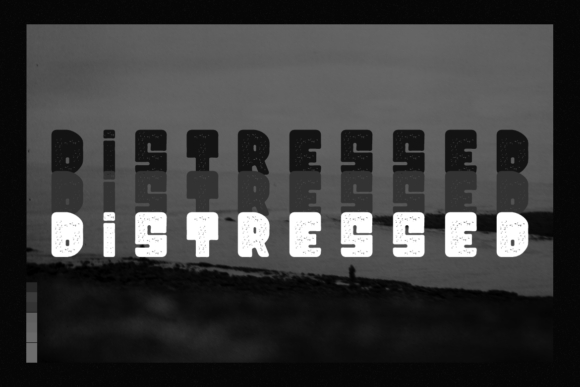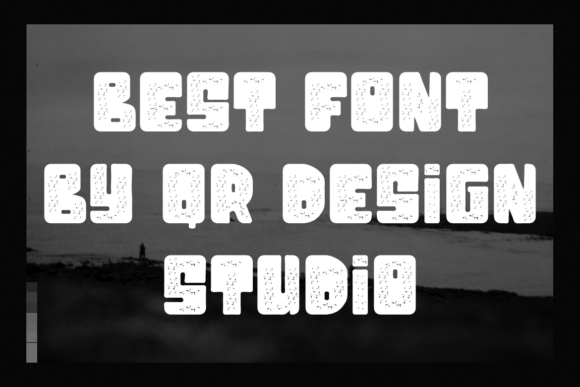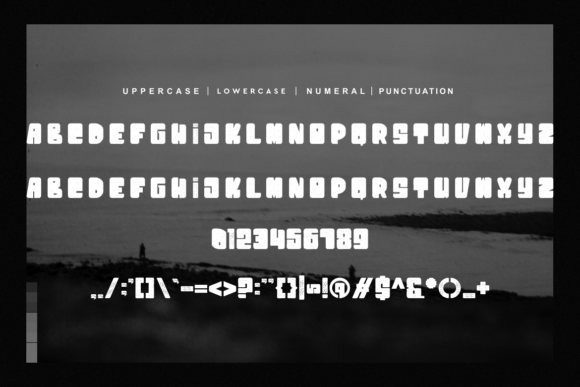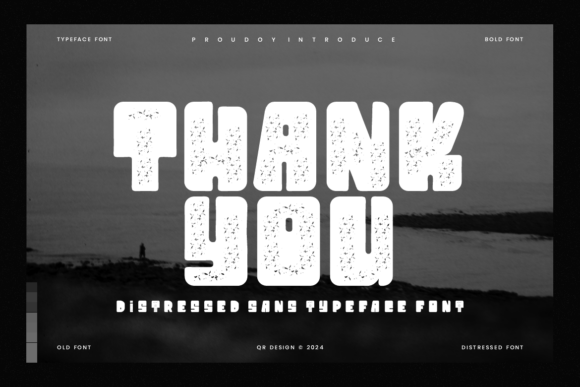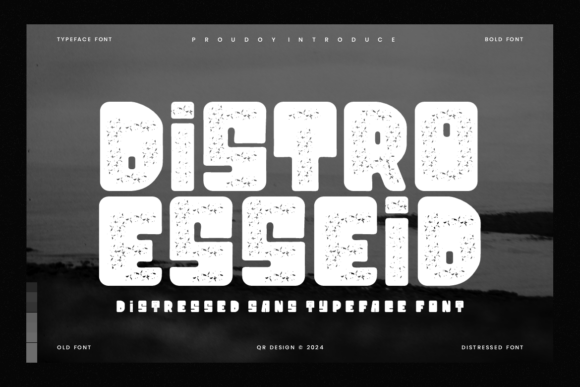
Introducing Distro Esseid Font: The Ultimate Modern Sans Serif for Bold Designs
In the world of typography, a font can make or break a design. For designers and crafters looking for a bold, modern sans serif font that exudes confidence and sophistication, look no further than Distro Esseid. This stunning typeface is designed to turn heads with its clean lines, strong geometric shapes, and contemporary style, making it perfect for logos, headlines, branding, and projects that demand a confident, eye-catching presence.
What Makes Distro Esseid Stand Out?
Distro Esseid is not just another font; it’s a statement piece. Its bold, modern sans serif design is characterized by clean lines and strong geometric shapes that give it a unique edge. This font is crafted to provide a sense of confidence and professionalism, making it an excellent choice for designers who want to create a lasting impression.
Key Features of Distro Esseid Font
• Bold and Modern Design: Distro Esseid boasts a bold, modern sans serif design that is perfect for making a statement.
• Clean Lines and Geometric Shapes: The font’s clean lines and strong geometric shapes give it a sleek, sophisticated look.
• Contemporary Style: Its contemporary style ensures that your designs look fresh and up-to-date.
• Versatility: Distro Esseid is versatile enough to be used in various design projects, from logos and headlines to branding and more.
Perfect for Logos, Headlines, and Branding
When it comes to creating memorable logos, headlines, and branding materials, the font you choose can make all the difference. Distro Esseid’s bold and confident style ensures that your message stands out. Whether you’re designing a logo for a new startup, creating headlines for a magazine, or developing a brand identity, Distro Esseid provides the perfect combination of style and readability.
Why Choose Distro Esseid for Your Projects?
There are several reasons why designers and crafters should consider Distro Esseid for their projects:
• Uniqueness: Distro Esseid offers a unique style that sets it apart from more traditional fonts.
• Readability: Despite its bold style, Distro Esseid maintains excellent readability, making it suitable for a wide range of applications.
• Flexibility: This font can be used in both digital and print projects, offering flexibility for designers.
• Professionalism: The font’s modern and clean design conveys a sense of professionalism and sophistication.
How to Use Distro Esseid Effectively in Your Designs
To make the most of Distro Esseid, consider the following tips:
• Pair with Complementary Fonts: Use Distro Esseid in combination with complementary fonts to create visual interest and hierarchy in your designs.
• Experiment with Sizes and Weights: Don’t be afraid to experiment with different sizes and weights of Distro Esseid to add depth and emphasis to your text.
• Consider Your Audience: Ensure that the bold style of Distro Esseid aligns with your brand’s message and appeals to your target audience.
Distro Esseid is a powerful tool for designers and crafters looking to create bold, modern designs. Its unique blend of clean lines, strong geometric shapes, and contemporary style makes it an excellent choice for a wide range of projects. Whether you’re working on a logo, headline, branding materials, or any other design project, Distro Esseid is sure to make a lasting impression.